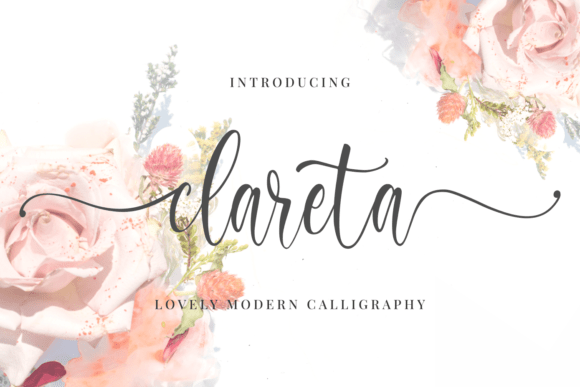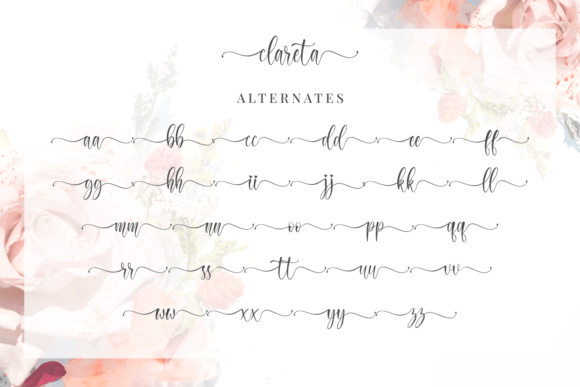
Clareta Font (by R. Studio) is a lovely calligraphy font. This is a beautiful combination of timeless elegance and authentic calligraphy. Clareta Font will add a romantic feeling to any design! It’s free at Creative Fabrica for the next 5 days so be sure to check it out.